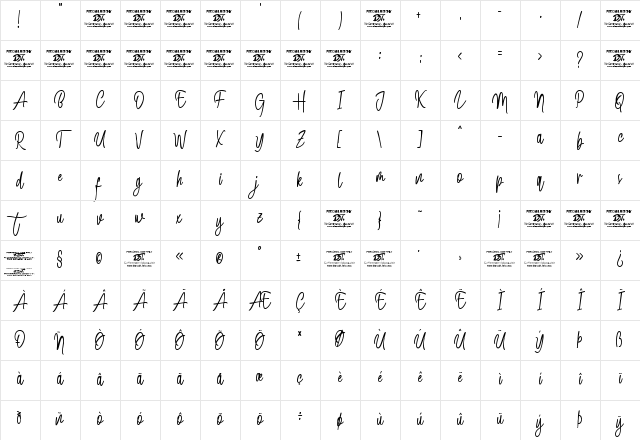
Bosstony 2 Regular Free Font
Bosstony 2 Regular
Designer: Toni Dzulham
Design Context for Bosstony 2
Bosstony 2 is a composed and adaptable typeface that performs quietly and consistently across a wide range of design contexts.